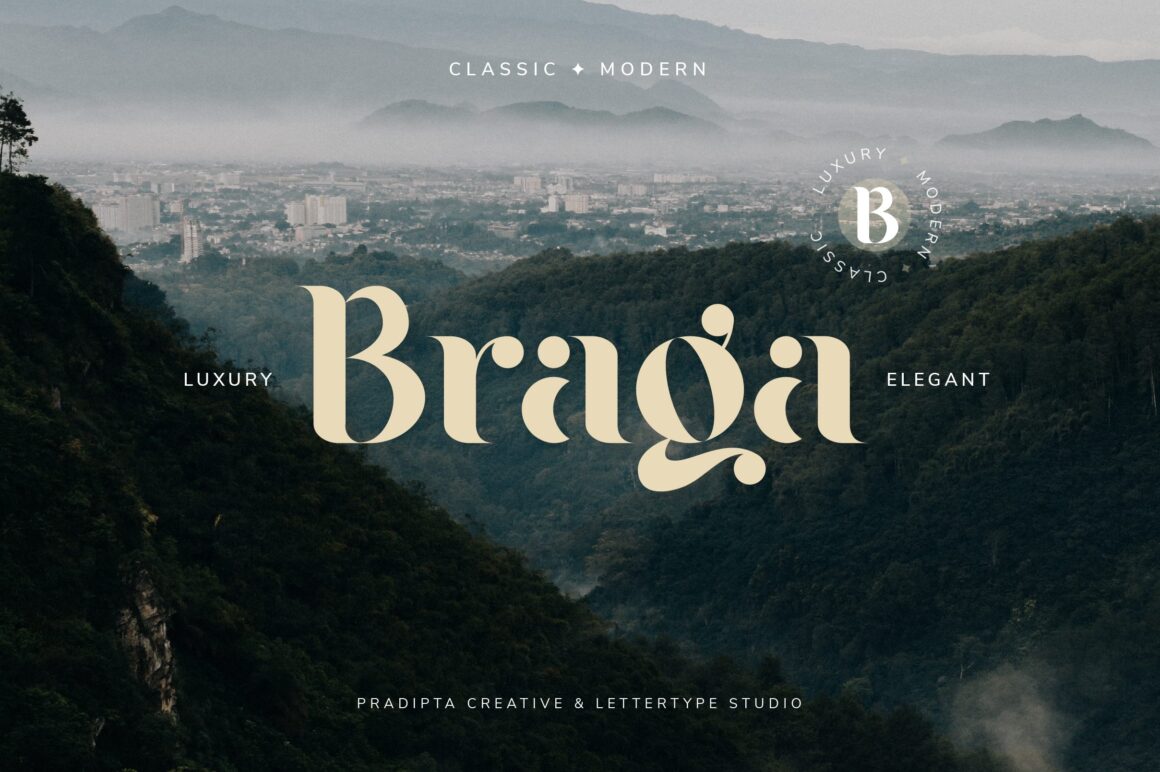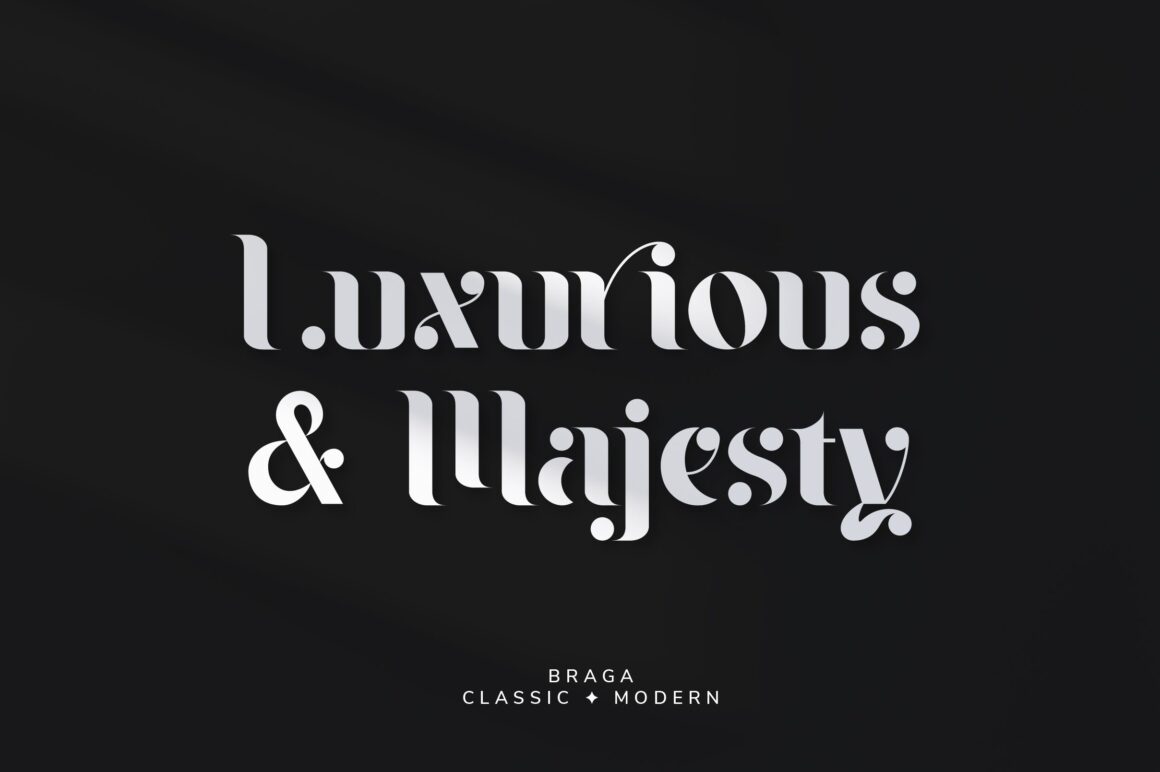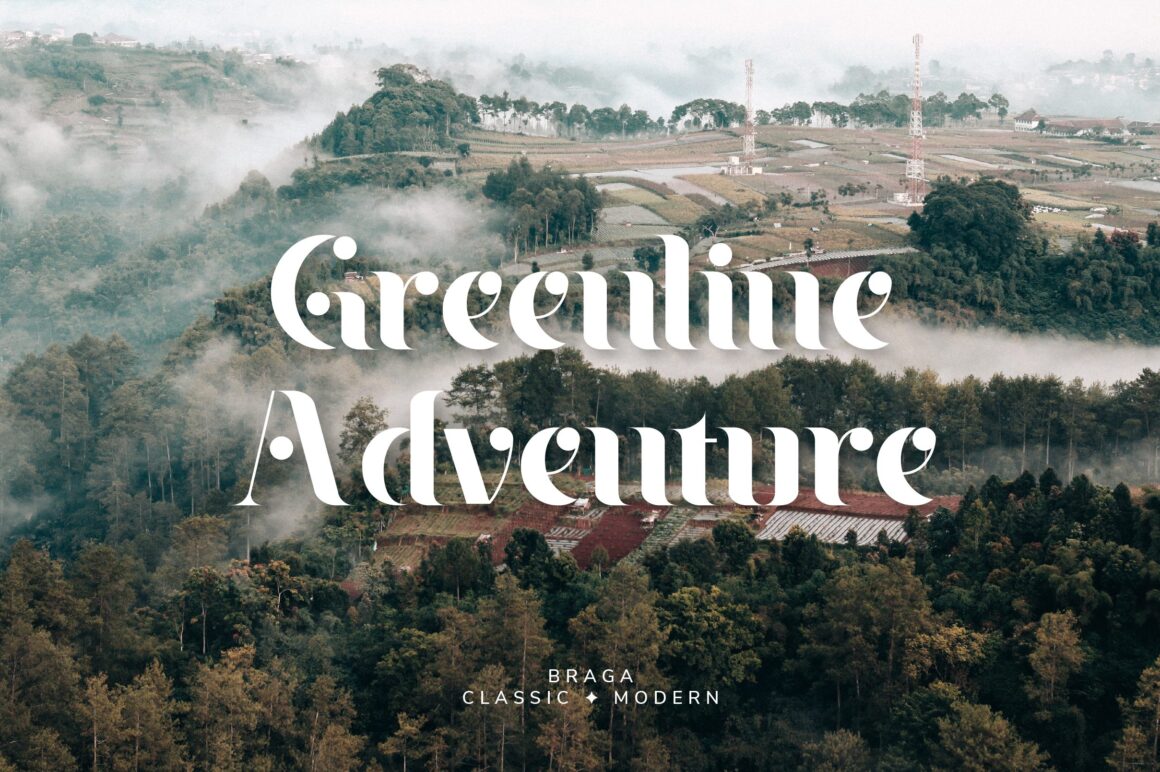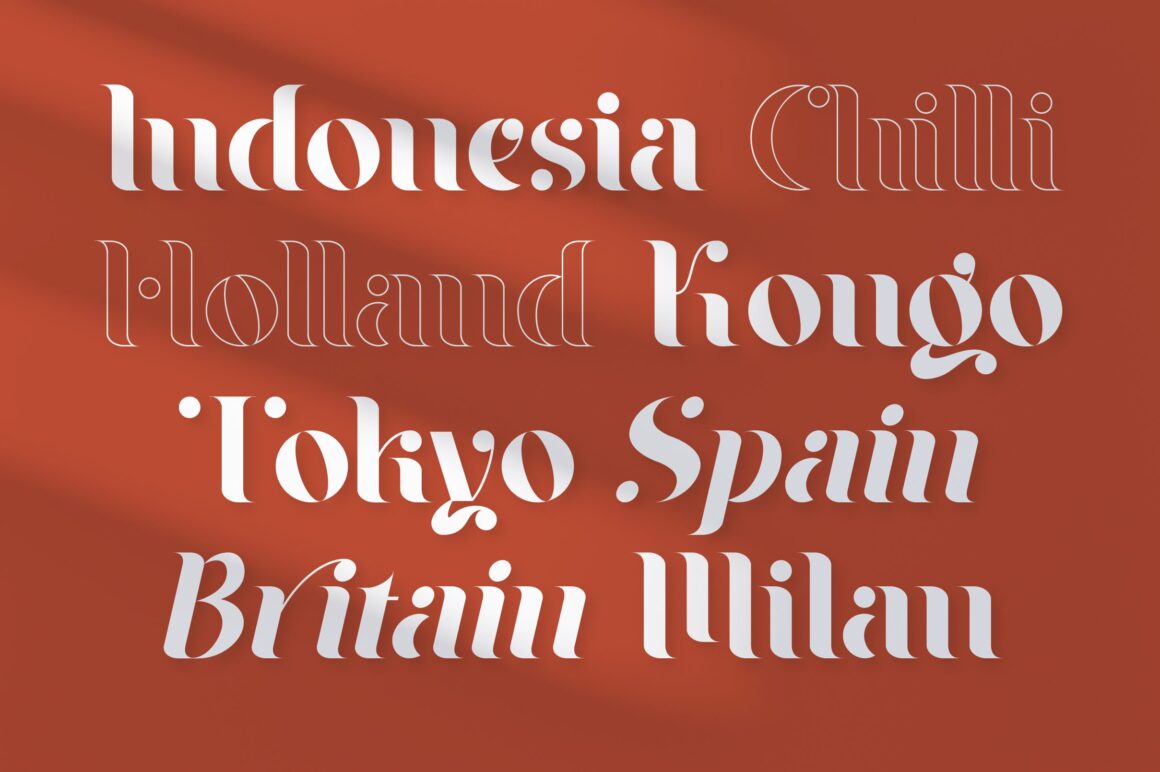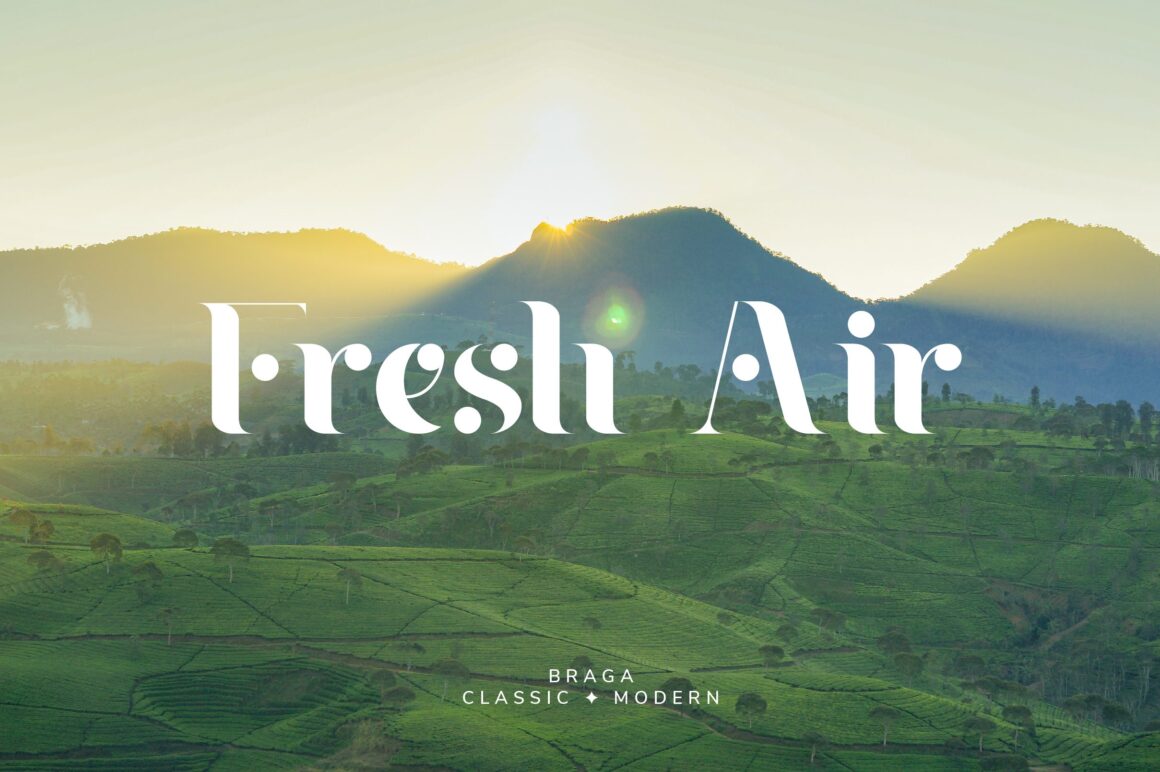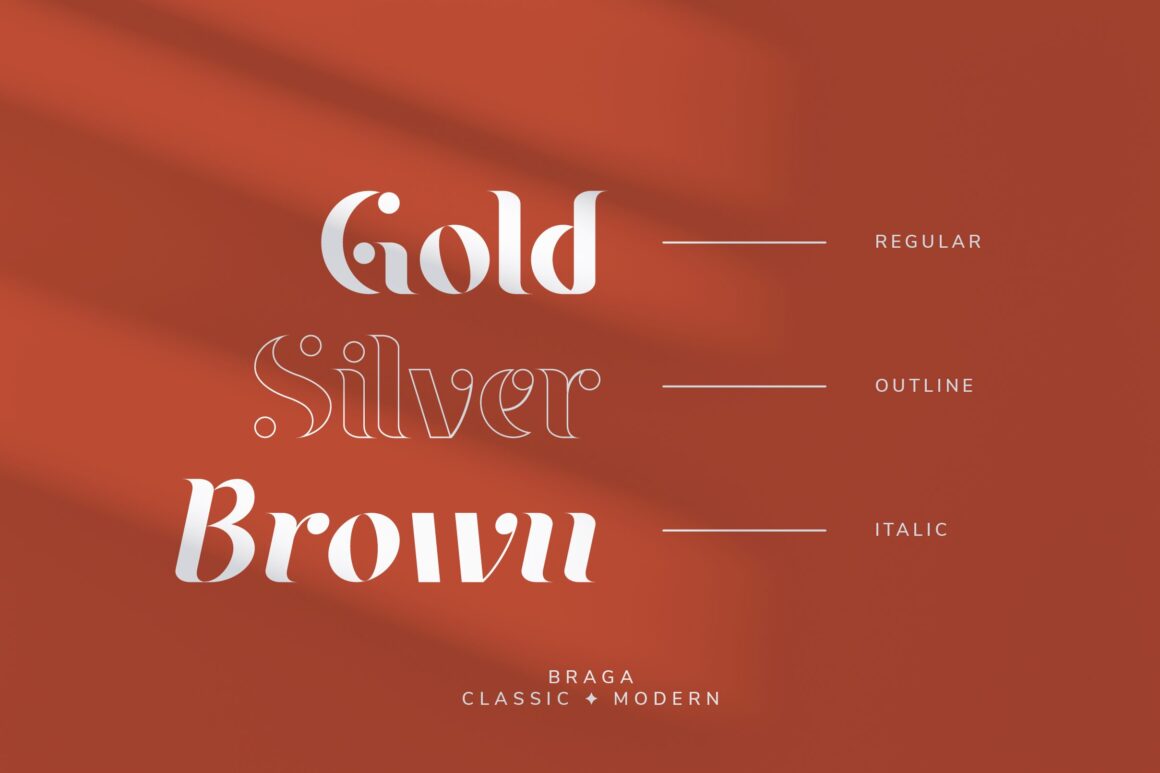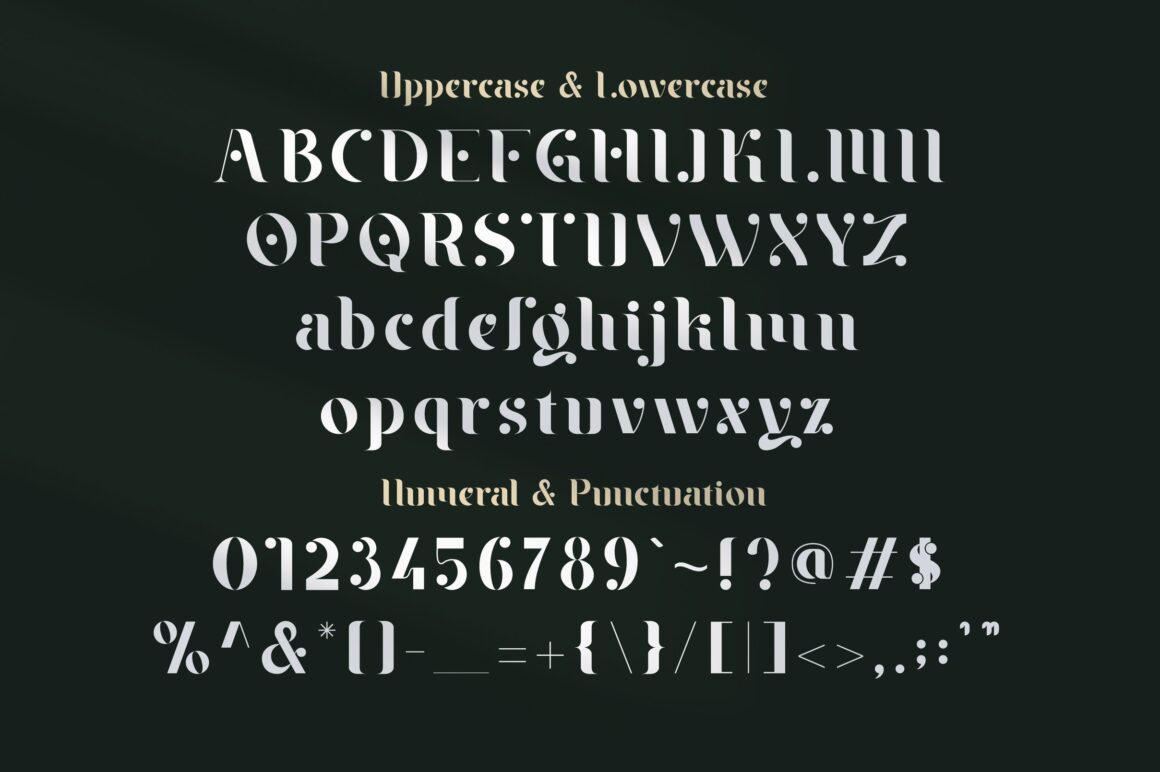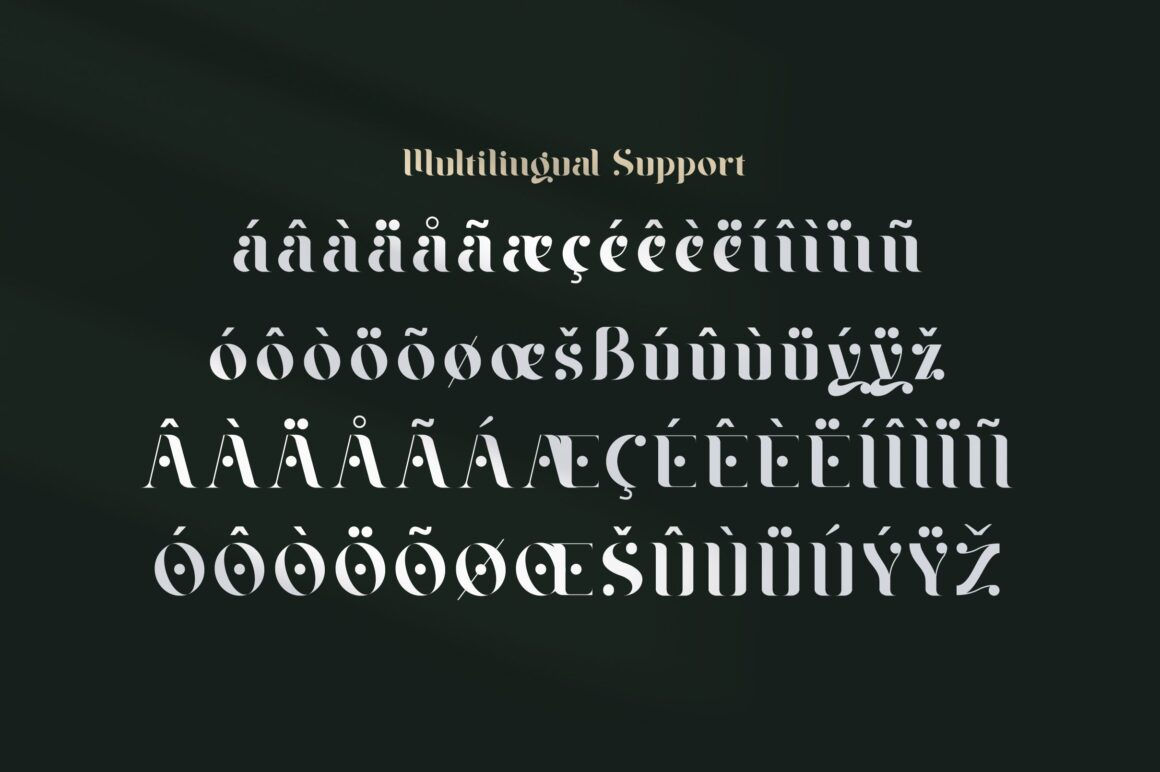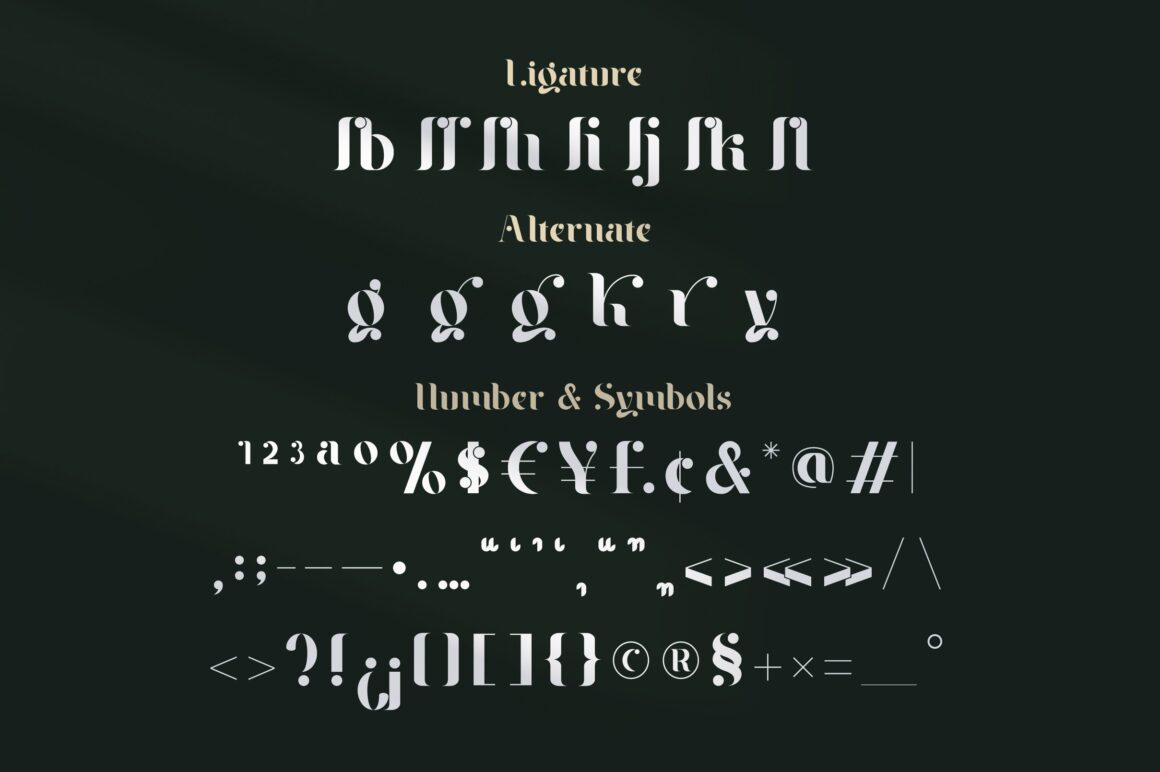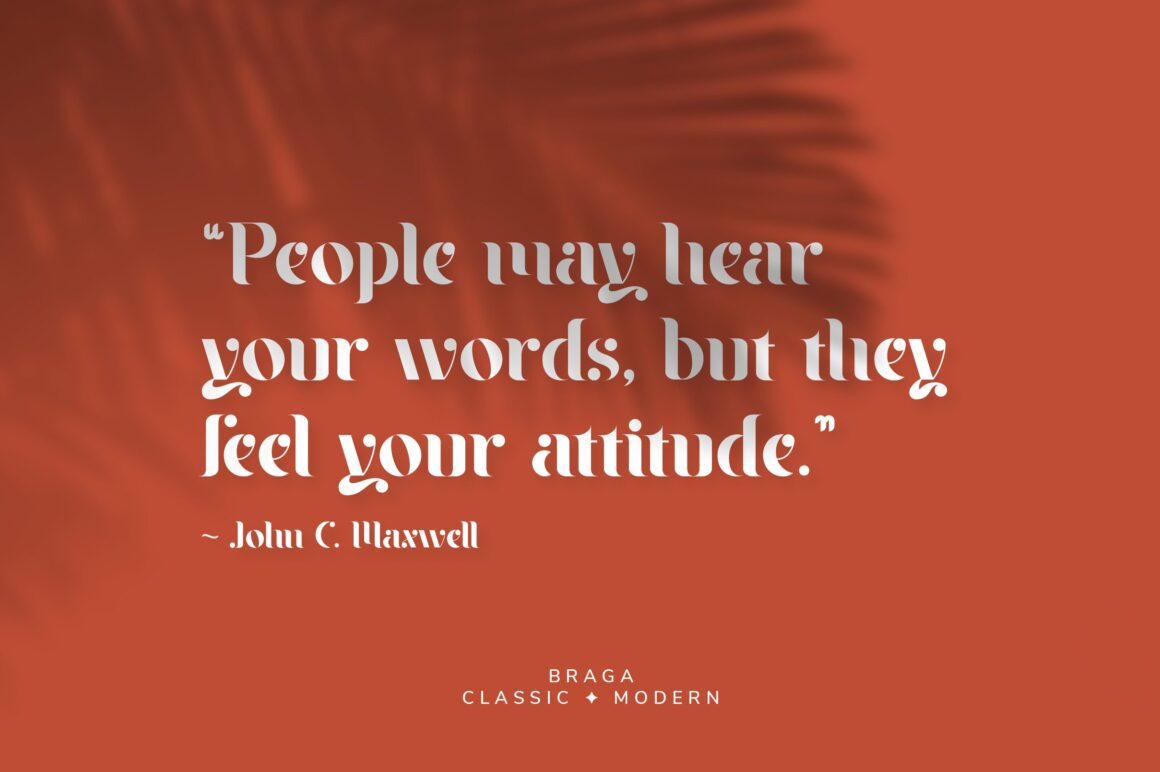
Braga or Braga Street is the name of a main street in the city of Bandung, Indonesia. The name of this street is well known since the reign of the Dutch East Indies. Until now, the name of the street is still maintained as one of the mascots and a tourist attraction in the city of Bandung which was formerly known as Paris van Java. With this same name, my hope is to try to illustrate the beauty of Braga Street and Bandung in this serif font.
Braga is a serif font with modern, classic or vintage style. This font will be perfect for logo design, branding, clothing, signage, posters, wedding invitations and so much more! My goal in creating this font was to create a mix of serif fonts with modern and classic styles, which will help your project to be more perfect and beautiful. Don’t Miss Out!
Braga Features:
- 3 Styles
- Upright & Oblique
- Stylistic Ligature
- 169+ Languages Supports